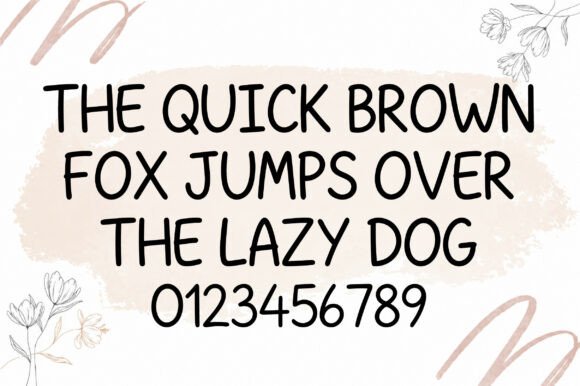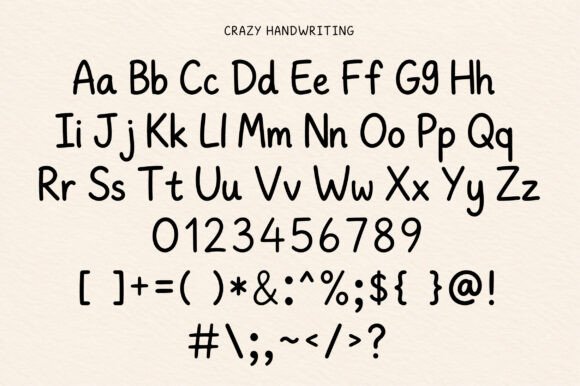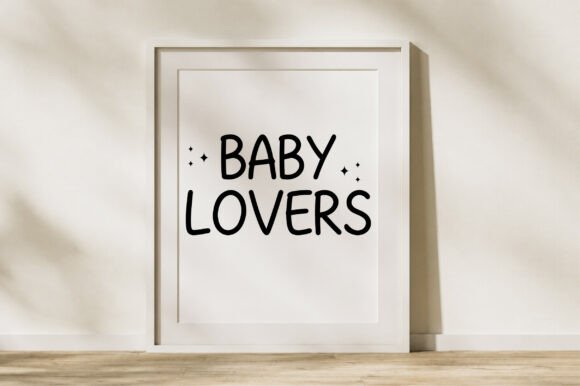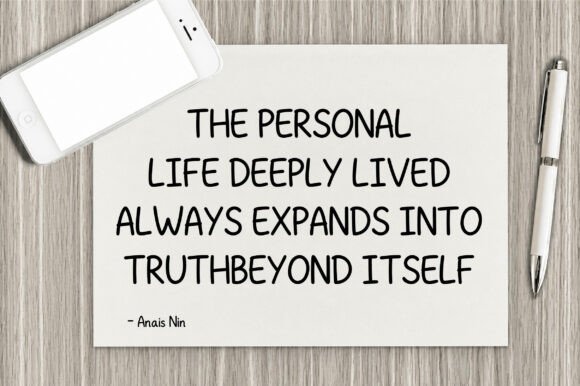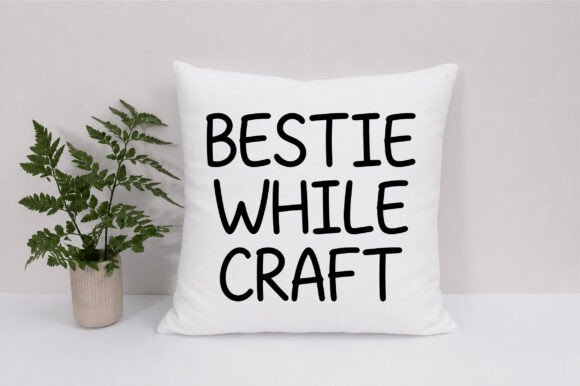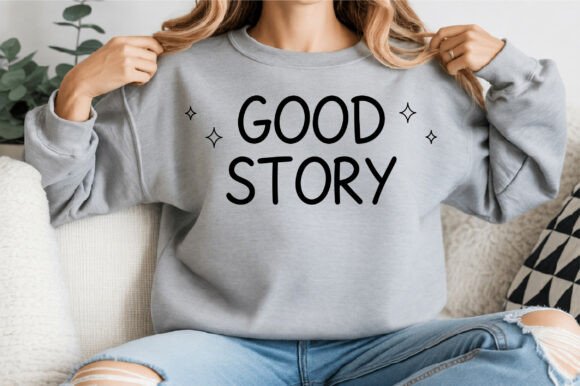
Crazy Handwriting Font: Add a Playful Touch to Your Designs
Are you looking for a font that can add a dash of fun and personality to your creative projects? Look no further than the Crazy Handwriting font! This playful and quirky handwritten font is perfect for designers, crafters, and anyone who wants to bring a friendly feel to their work.
What Makes Crazy Handwriting Special?
Crazy Handwriting is a unique font that stands out from the crowd with its tall, uneven strokes and natural marker-style appearance. The font has a casual, handwritten style that adds personality and charm to any design, making it perfect for kids’ designs, posters, t-shirts, stickers, branding, social media graphics, invitations, and DIY crafts.
Perfect for Kids’ Designs and Crafts
One of the best things about Crazy Handwriting is its kid-friendly appeal. The font’s playful and fun style makes it ideal for designs aimed at children, such as:
- Kids’ party invitations
- Children’s book titles
- Fun stickers and labels
- Kids’ clothing and accessory designs
- Educational materials and worksheets
The font’s clean and easy-to-read style ensures that your message is conveyed clearly, making it perfect for kids’ projects.
Versatile and Easy to Use
Crazy Handwriting is a versatile font that includes:
- Uppercase letters
- Lowercase letters
- Numbers
- Special characters
This comprehensive set of characters makes it easy to use the font for a wide range of designs, from digital graphics to print materials.
Ideal for Digital and Print Designs
Crazy Handwriting is designed to work seamlessly in both digital and print formats. Whether you’re creating:
- Website headers
- Printed brochures
the font’s clear and legible style ensures that your message is conveyed effectively.
Adding Personality to Your Designs
Crazy Handwriting is more than just a font – it’s a way to add personality and charm to your designs. The font’s natural, handwritten style gives your work a friendly and approachable feel, making it perfect for:
- Branding and packaging designs
- DIY crafts and scrapbooking
With Crazy Handwriting, you can add a touch of whimsy and fun to your designs, making them stand out from the crowd.